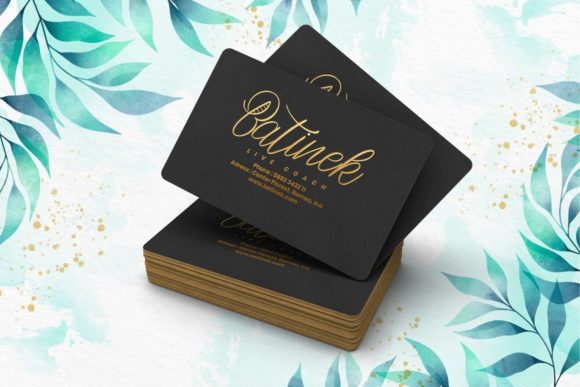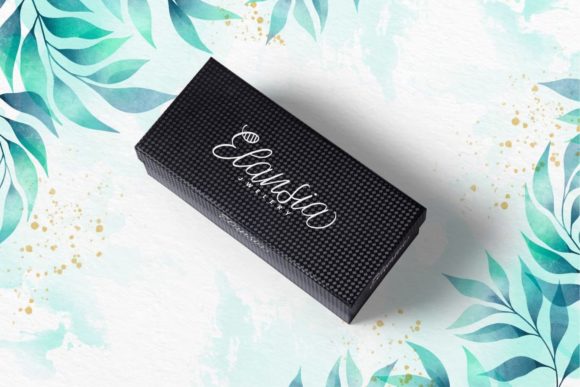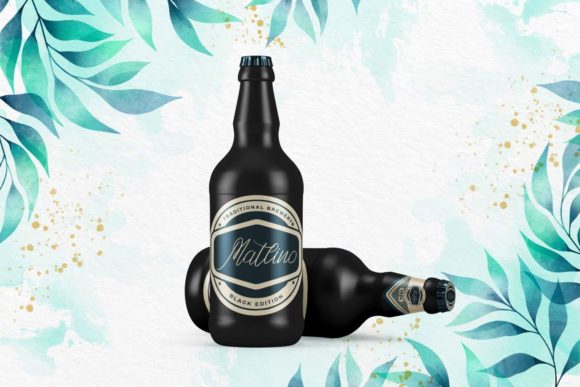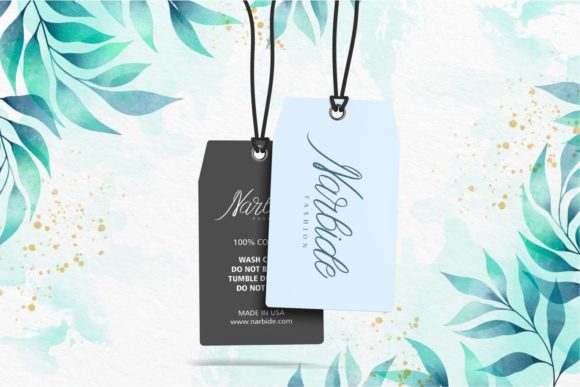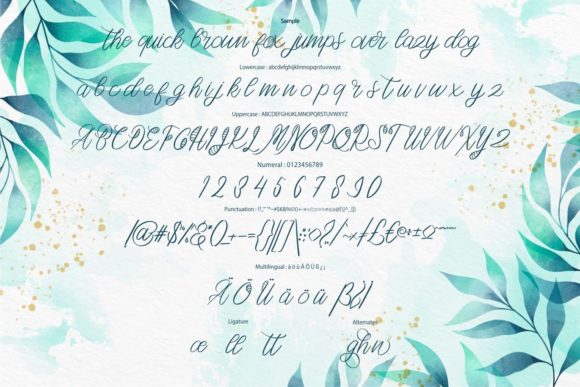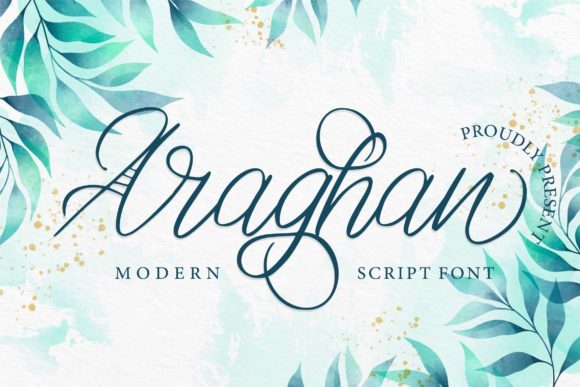
Araghan Font: Elevate Your Designs with Elegance and Charm
Are you a designer or crafter looking for a font that exudes elegance and charm? Look no further than the Araghan Font. This beautiful, handwritten font is perfect for adding a touch of sophistication to any design project. In this article, we’ll explore the features and benefits of the Araghan Font, and show you how to make the most of this stunning typeface.
The Araghan Font: A Beautiful, Handwritten Typeface
The Araghan Font is a gorgeous, handwritten font that feels equally charming and elegant. Its flowing lines and delicate curves make it perfect for designs that require a personal touch. Whether you’re creating wedding invitations, thank you cards, quotes, greeting cards, logos, or business cards, the Araghan Font is sure to impress.
What Makes Araghan Font So Special?
So, what sets the Araghan Font apart from other fonts? Here are just a few of its standout features:
• Elegant and charming: The Araghan Font has a unique, elegant feel that’s perfect for designs that require a touch of sophistication.
• Handwritten touch: The font’s handwritten style gives it a personal, organic feel that’s perfect for adding a touch of warmth to your designs.
• Versatile: The Araghan Font is versatile enough to be used on a wide range of design projects, from wedding invitations to business cards.
• Easy to read: Despite its elegant style, the Araghan Font is easy to read, making it perfect for designs that require a clear, legible font.
Using Araghan Font in Your Designs
So, how can you use the Araghan Font in your designs? Here are a few ideas to get you started:
• Wedding invitations: The Araghan Font is perfect for wedding invitations, adding a touch of elegance and sophistication to your designs.
• Thank you cards: Use the Araghan Font to create beautiful, personalized thank you cards that will make your recipients feel special.
• Quotes: The Araghan Font is perfect for highlighting inspirational quotes, adding a touch of elegance to your designs.
• Greeting cards: Use the Araghan Font to create beautiful, personalized greeting cards for any occasion.
• Logos: The Araghan Font can be used to create elegant, sophisticated logos that will help your brand stand out.
• Business cards: Use the Araghan Font to create professional, elegant business cards that will make a lasting impression.
Tips for Getting the Most Out of Araghan Font
Here are a few tips for getting the most out of the Araghan Font:
• Use it sparingly: While the Araghan Font is beautiful, it can be overwhelming if used too much. Use it sparingly to add a touch of elegance to your designs.
• Pair it with other fonts: The Araghan Font pairs well with other fonts, such as sans-serif fonts. Experiment with different pairings to find the one that works best for your design.
• Experiment with colors: The Araghan Font looks stunning in a variety of colors. Experiment with different colors to find the one that works best for your design.
The Araghan Font is a beautiful, elegant typeface that’s perfect for designers and crafters looking to add a touch of sophistication to their designs. With its flowing lines, delicate curves, and handwritten style, it’s perfect for a wide range of design projects, from wedding invitations to business cards. By following the tips outlined in this article, you can get the most out of the Araghan Font and create stunning designs that will leave a lasting impression.